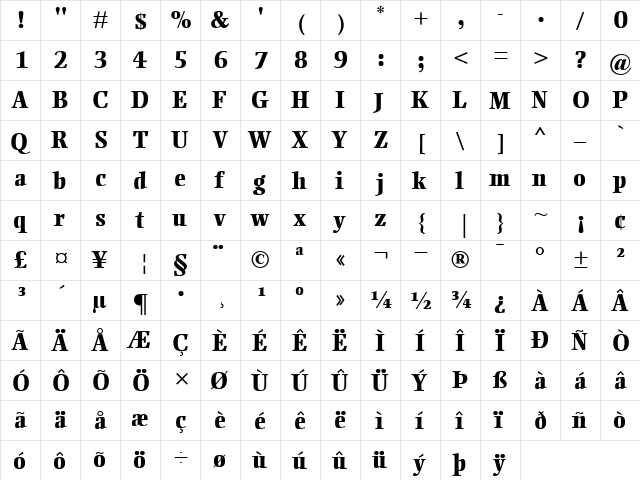
EllingtonMT-ExtraBold Extra Bold
Design Context for EllingtonMT-ExtraBold Typeface
EllingtonMT-ExtraBold is a composed and adaptable typeface that performs quietly and consistently across a wide range of design contexts. The heavy weight commands attention and anchors typographic hierarchies.
Pro Tip: Use EllingtonMT-ExtraBold in both headline and body roles to test its range before committing to a single application.